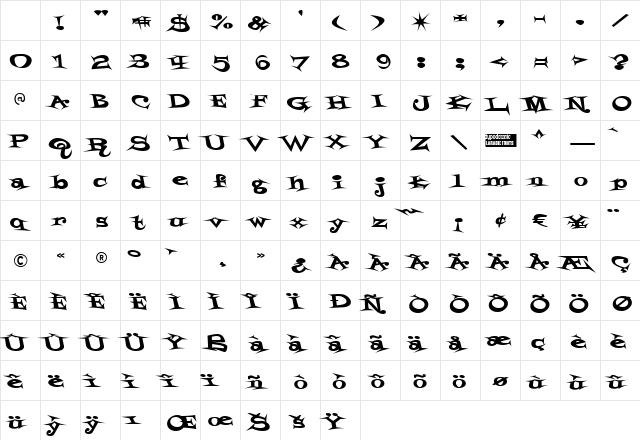
Complete Styrofoam Feelings Regular glyph index. Displaying only characters natively supported by Styrofoam Feelings Regular font.
Styrofoam Feelings is a composed and adaptable typeface that performs quietly and consistently across a wide range of design contexts.